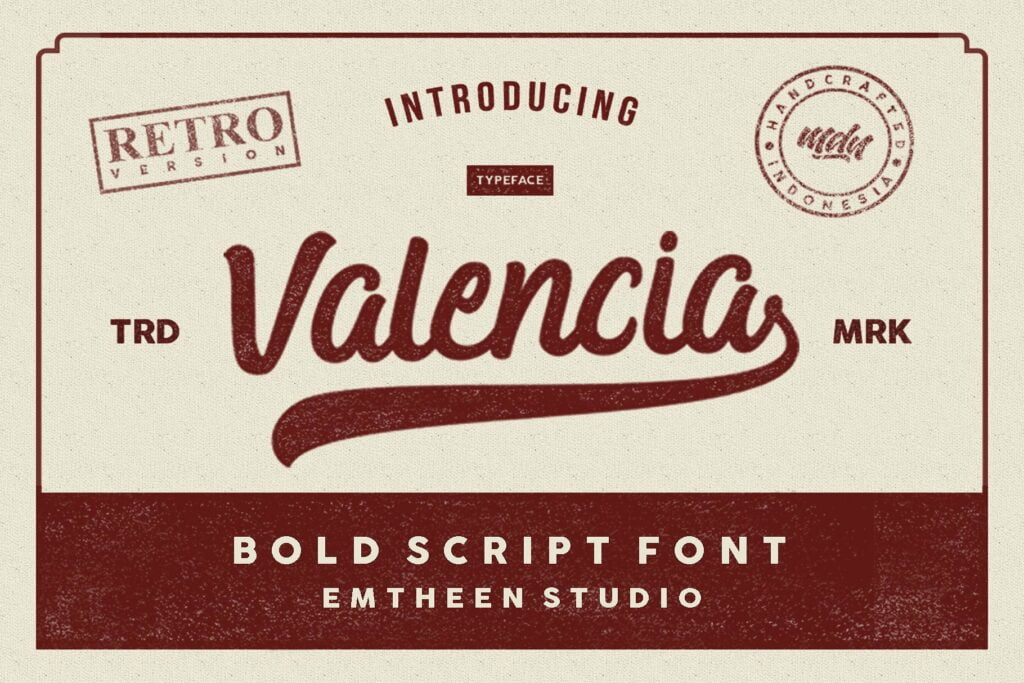
Valencia Script Font
Introducing Valencia. It is designed by Emtheen , this is a premium font, are sold on creativemarket, but it was great, it is free today for download. Valencia is a bold scipt type font.
This font is themed vintage and retro style and of course this font is perfect for a variety of other themes such as modern, and the addition of swash will be visible more interesting. This font is perfect for use in logos, posters, typography, cover books, clothing, branding designs, product packaging, and more.